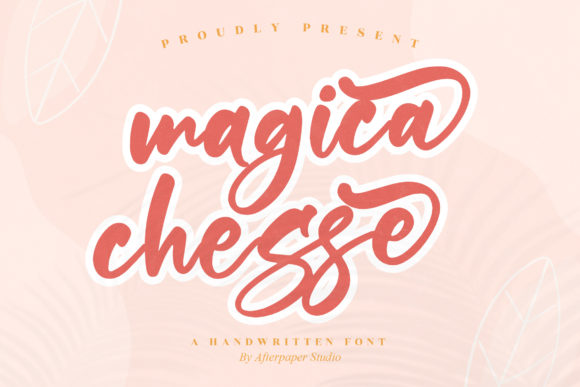
Step into the enchanting world of Magica Chesse, a captivating script font that casts a spell of elegance over your designs. Designed by the talented Afterpaper, Magica Chesse is a font that whispers sweet nothings in the language of creativity.
Let your imagination run wild with this charming script font, crafted with intricate details and flowing curves that evoke a sense of timeless sophistication. Magica Chesse is not merely a collection of letters; it's an enchanting journey through a realm of boundless creativity.
Unleash the allure of Magica Chesse upon your visual masterpieces - logos, branding projects, labels, photography, watermarks, special events, and any project yearning for a touch of refinement. Its versatility shines like a beacon, illuminating your vision with a myriad of possibilities.
Lose yourself in the dreamy embrace of Magica Chesse, a font that weaves magic into your words. Allow it to carry your messages with grace and style, conveying emotions with a depth that resonates with your audience.
With Magica Chesse, your designs transcend the ordinary, transcending into realms of beauty and elegance. Its delicate strokes and playful ligatures dance across the page, captivating the beholder with their enchanting allure.
Embrace the magnetic charm of Magica Chesse, a font that ignites imagination and enchants the digital canvas. Surrender to its allure and watch your creative dreams unfold into a captivating reality.